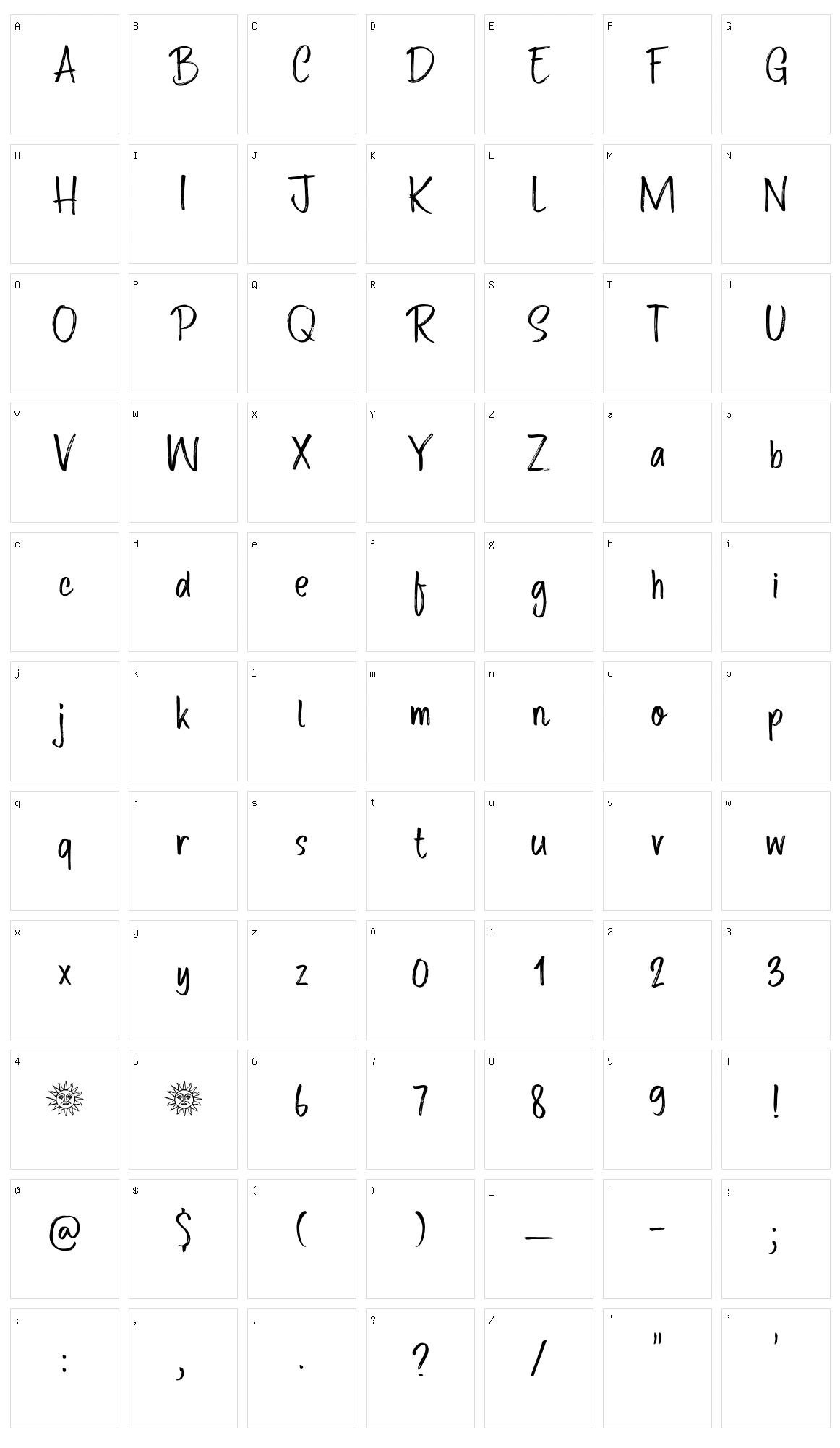
The free font Route Du Soleil is carefully designed by Hanoded, showcasing a thoughtful balance of creativity and usability and falls under the Script font style. When you download the ZIP file, it contains only 1221.07 KB of font files, making it lightweight and quick to download. Please review the license details below to understand permitted usage and distribution rights. If license information is not available, we recommend using this font for personal projects only or contacting the author directly for commercial usage permissions.